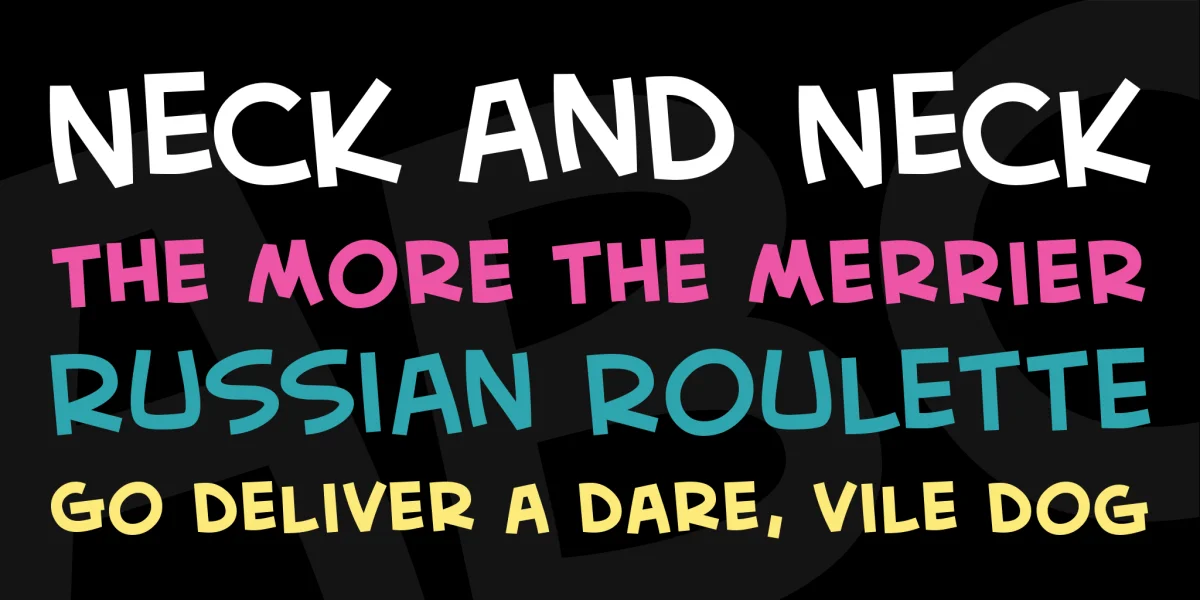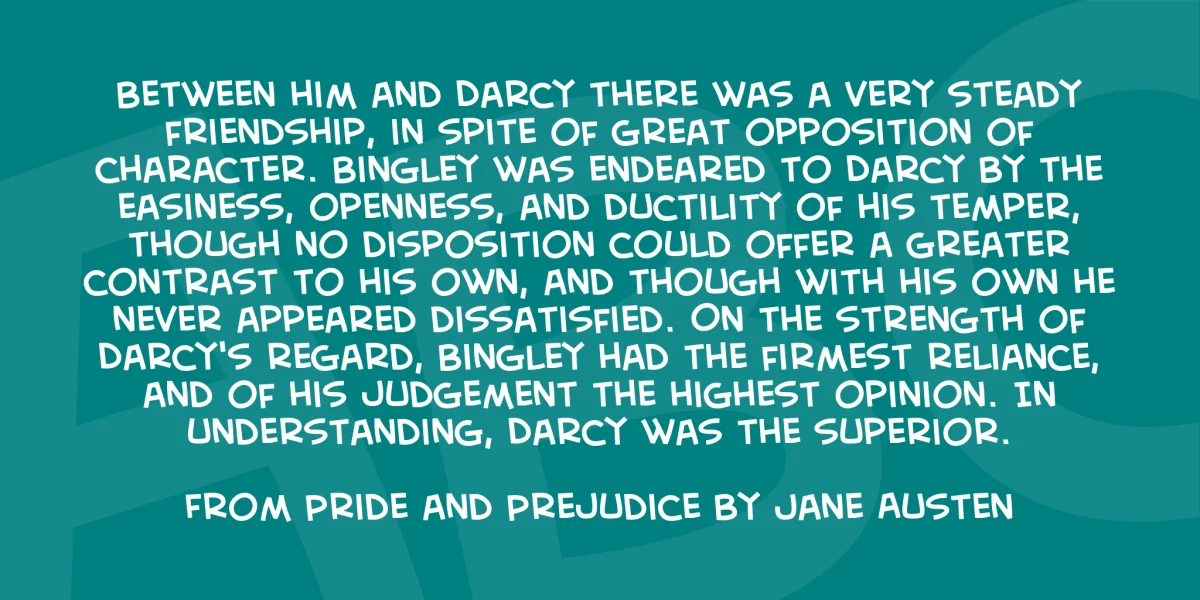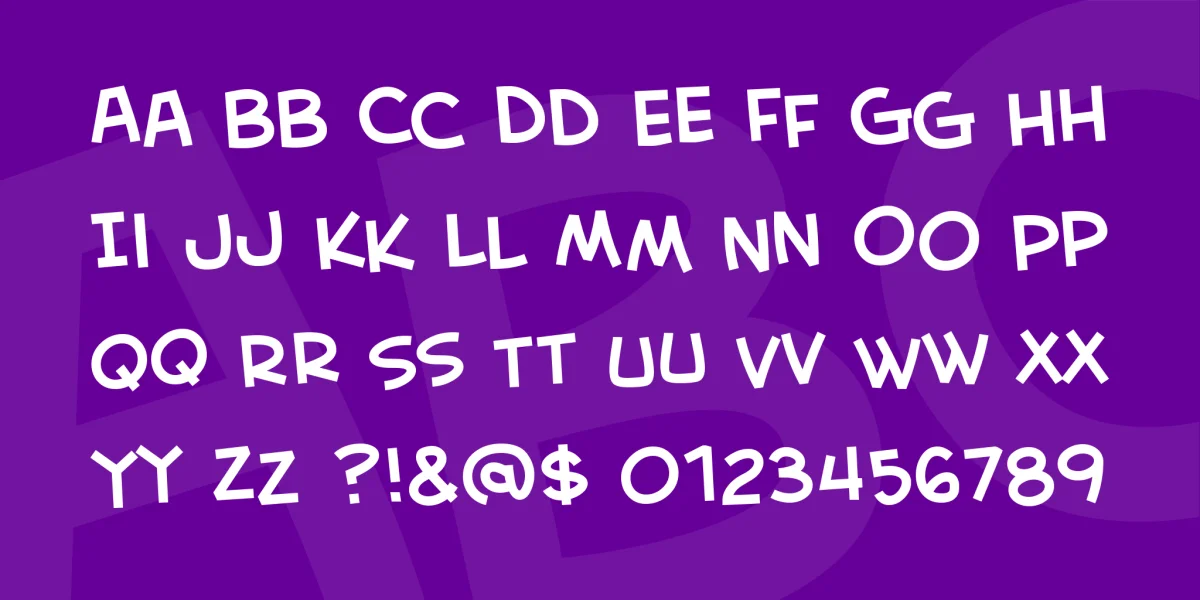
A bouncy, fun dialogue font to get you out of that creative rut. Perfect for indie comics and the Sunday funnies alike! The upper and lower keys have jogged baselines for when you have to type a word with consecutive letters like “book”.